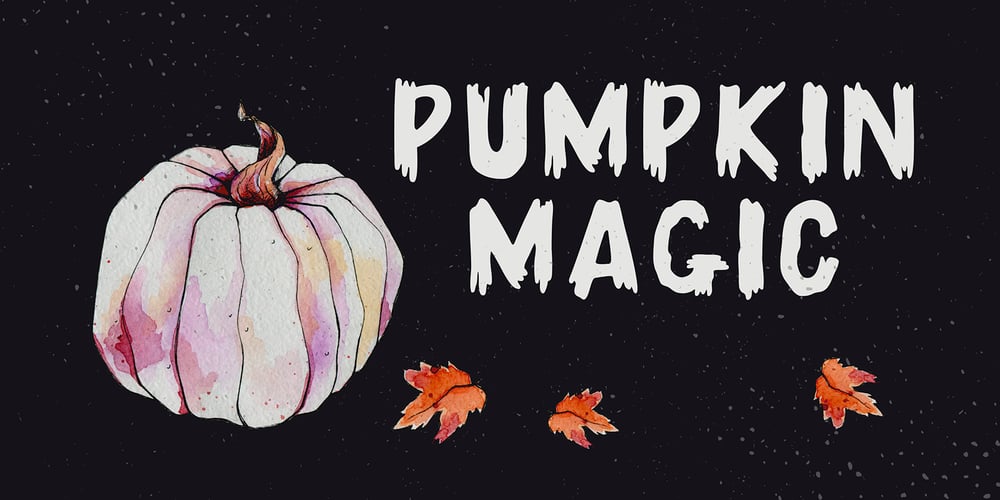
Pumpkin Magic Font Family was designed by Anastasia Kuznetsova and published by Anastasia Kuznetsova. Pumpkin Magic contains 1 styles and family package options. Say hello to the “Pumpkin Magic” font!Funny font with bonus seamless patterns! The regular solid font version is also included for you.Great for sweet greeting cards and invitations, for playful branding and quotes, for unusual packaging and much more!This font is unique and simple :)Font Features• A-Z character set;• 1 language (English);• numbers and punctuation marks, symbolsIt is recommended to use it in Adobe Illustrator or Adobe PhotoshopMade with love ♡